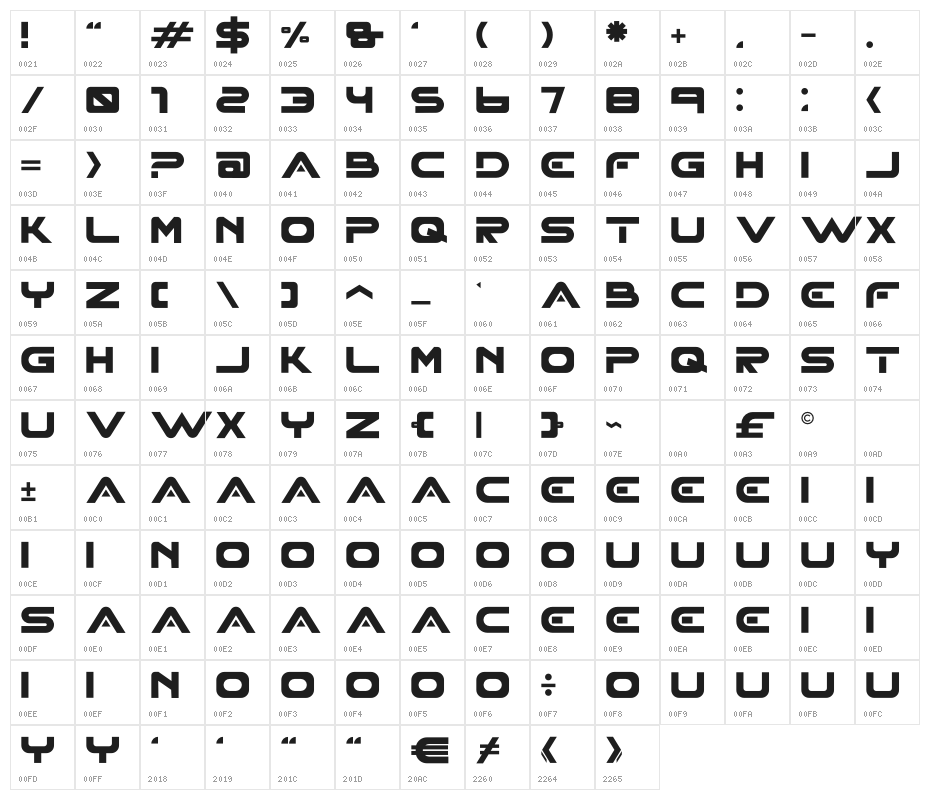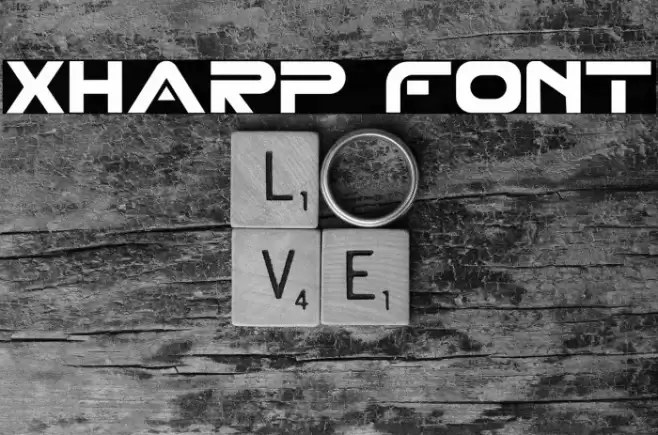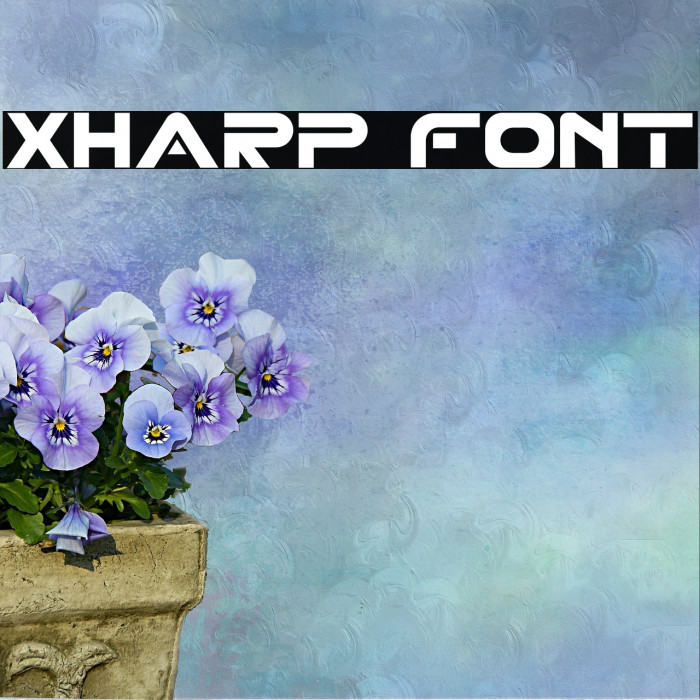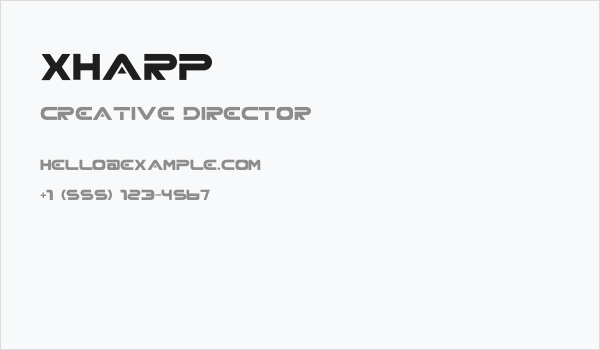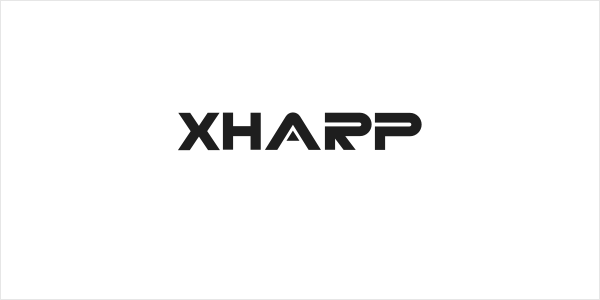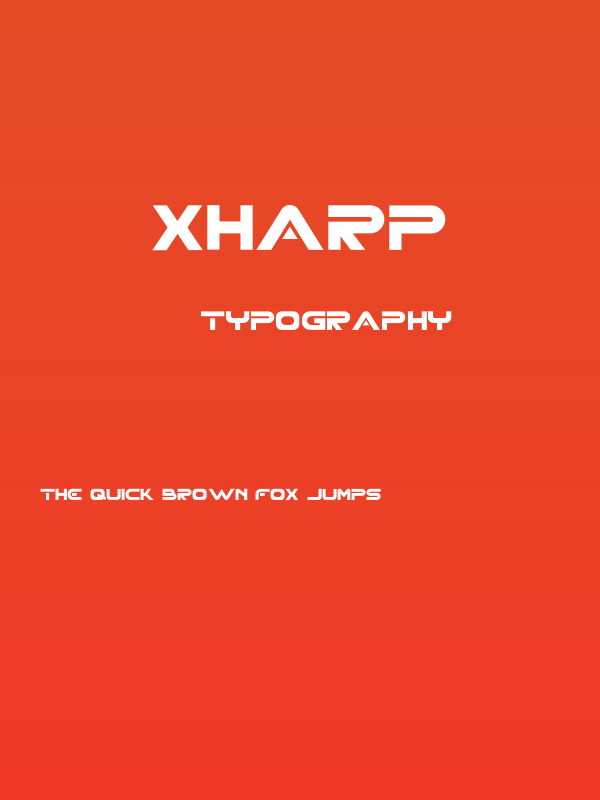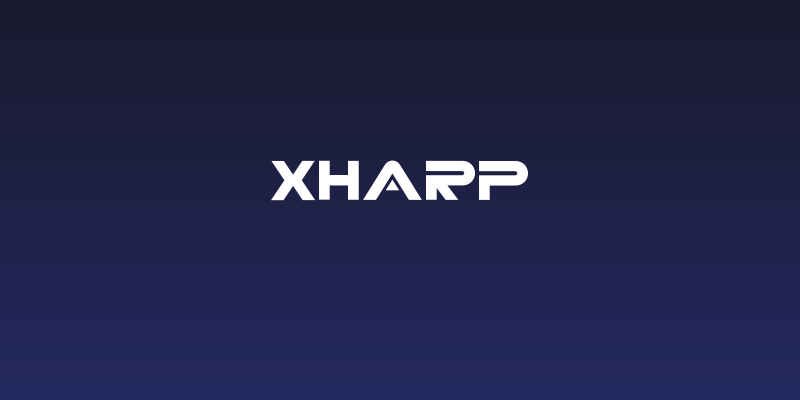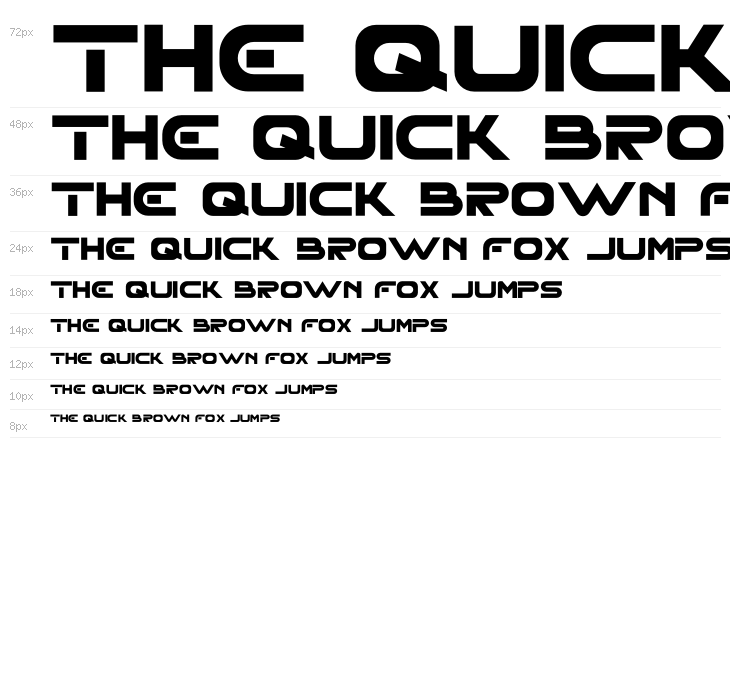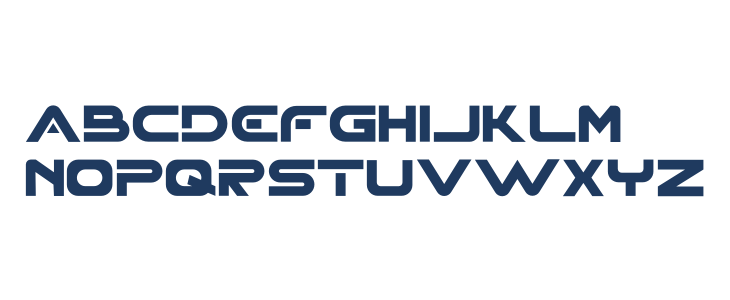
XHARP Font
XHARP Description
This font features a bold, futuristic design with geometric shapes and sharp angles. The characters are constructed with a consistent stroke width, giving it a uniform and cohesive appearance. The uppercase letters are particularly striking, with a modern aesthetic that is both eye-catching and distinctive. The numerals and special characters maintain the same boldness and geometric style, ensuring a harmonious look across all text elements. The font's design is well-suited for projects that require a strong visual impact, such as technology branding, sci-fi themes, or modern advertising.
| Proposed Projects | Ideal for technology branding, sci-fi themes, modern advertising, and digital interfaces. |